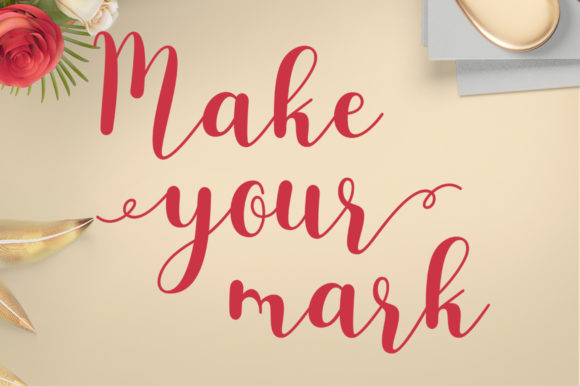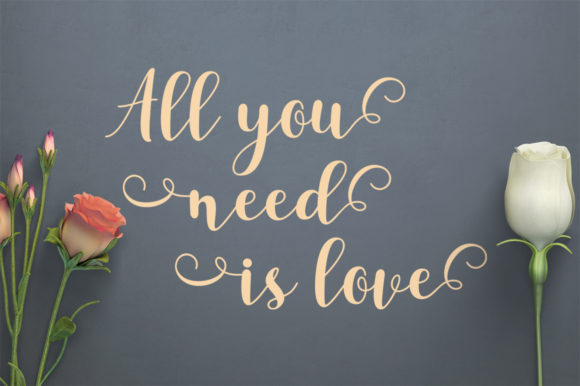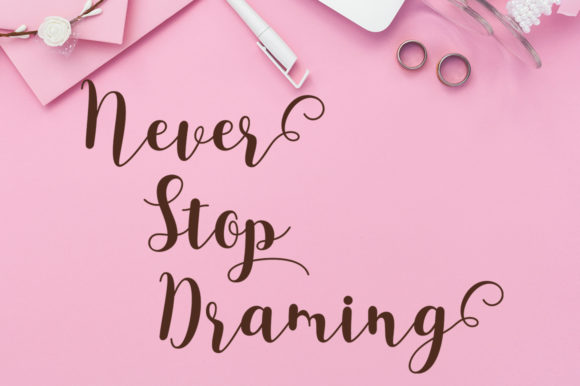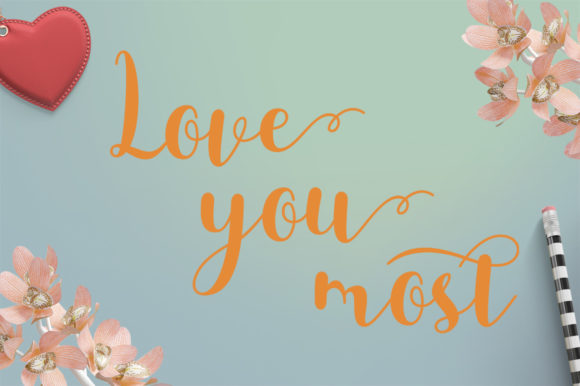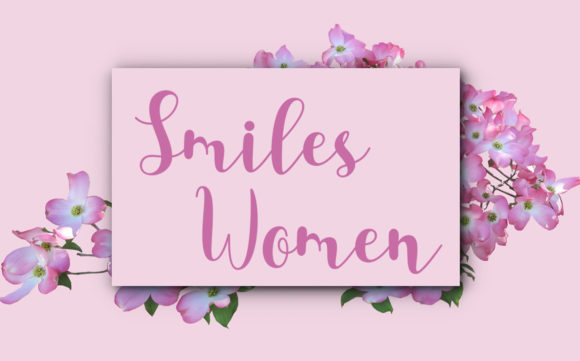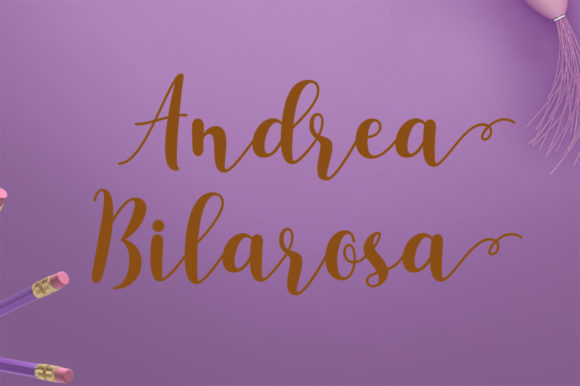
Audrey Font: Elevate Your Designs with a Touch of Elegance
Are you on the hunt for a font that exudes elegance, sophistication, and a dash of playfulness? Look no further than the Audrey Font! This casual yet incredibly flowing and distinct handwritten font is perfect for designers and crafters looking to add a touch of whimsy to their creations. In this article, we’ll dive into the features and benefits of the Audrey Font, and explore how you can use it to take your designs to the next level.
What Makes Audrey Font So Special?
Audrey Font is a PUA (Private Use Area) encoded font, which means you can access all of the glyphs and swashes with ease. This feature allows you to unlock a world of creative possibilities, from beautiful wedding invitations to stunning social media posts. The font boasts a varying baseline, smooth lines, gorgeous glyphs, and stunning alternates, making it incredibly versatile and perfect for a wide range of design applications.
Key Features of Audrey Font
• Casual yet elegant: Audrey Font strikes the perfect balance between casual and elegant, making it suitable for a variety of design projects.
• Incredibly flowing: The font’s smooth lines and flowing curves create a sense of movement and fluidity, adding a touch of dynamism to your designs.
• Distinct handwritten style: Audrey Font’s unique handwritten style sets it apart from other fonts, giving your designs a personal and human touch.
• PUA encoded: With PUA encoding, you can access all of the glyphs and swashes with ease, unlocking a world of creative possibilities.
• Varying baseline: The font’s varying baseline adds a touch of whimsy and playfulness to your designs, making them more engaging and eye-catching.
• Gorgeous glyphs and alternates: Audrey Font comes with a range of gorgeous glyphs and alternates, allowing you to add an extra layer of creativity to your designs.
How to Use Audrey Font in Your Designs
Audrey Font is incredibly versatile, making it perfect for a wide range of design applications. Here are just a few ideas to get you started:
• Wedding invitations: Create beautiful, one-of-a-kind wedding invitations that set the tone for a special day.
• Stationary art: Use Audrey Font to create stunning stationary art, including greeting cards, thank you cards, and more.
• Social media posts: Add a touch of elegance and sophistication to your social media posts, making them stand out in a crowded feed.
• Branding and packaging: Use Audrey Font to create a unique and memorable brand identity, perfect for packaging, labels, and more.
Why Designers and Crafters Love Audrey Font
Audrey Font has quickly become a favorite among designers and crafters, and for good reason. Here are just a few reasons why:
• Easy to use: With its PUA encoding and user-friendly design, Audrey Font is easy to use, even for those new to font design.
• Highly versatile: The font’s versatility makes it perfect for a wide range of design applications, from wedding invitations to social media posts.
• Unique and distinctive: Audrey Font’s unique handwritten style sets it apart from other fonts, giving your designs a personal and human touch.
In conclusion, Audrey Font is a must-have for designers and crafters looking to add a touch of elegance and sophistication to their creations. With its unique handwritten style, PUA encoding, and highly versatile design, this font is perfect for a wide range of design applications. Whether you’re creating wedding invitations, stationary art, or social media posts, Audrey Font is sure to elevate your designs and take them to the next level.